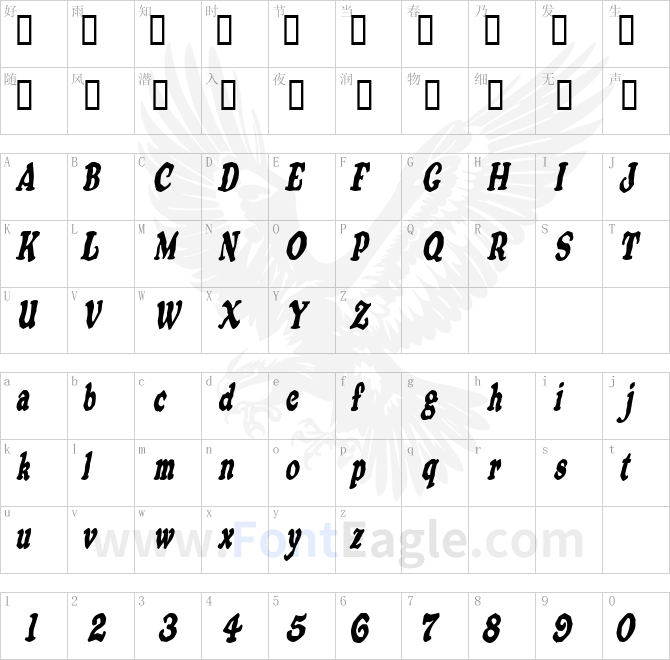
- Font name:OatmealCondensed
- Font Subfamily ID:SWFTE:OatmealCondensed Italic
- Font Full Name:OatmealCondensed Italic
- Postscript:OatmealCondensedItalicSWFTE